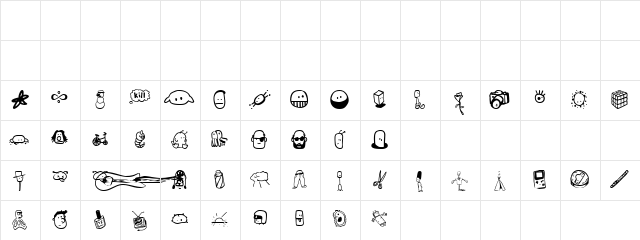
Kidz Jone Regular
Design Context for Kidz Jone Typeface
Kidz Jone is a composed and adaptable typeface that performs quietly and consistently across a wide range of design contexts.